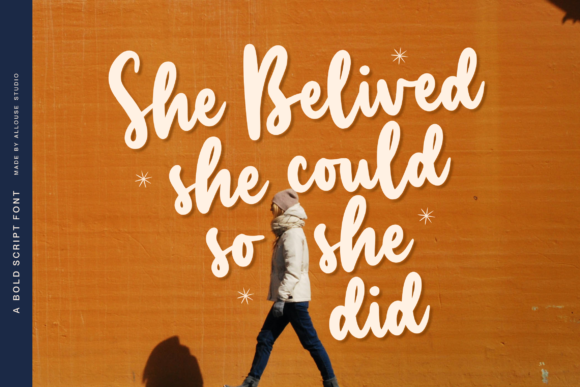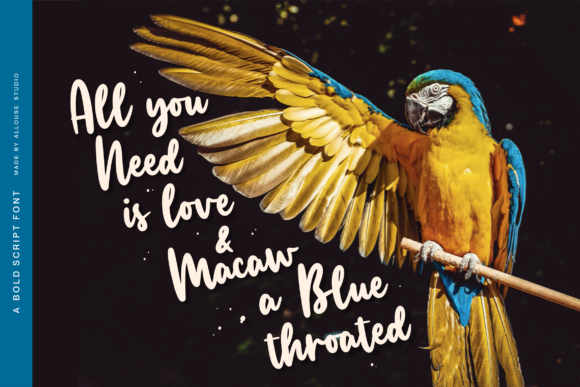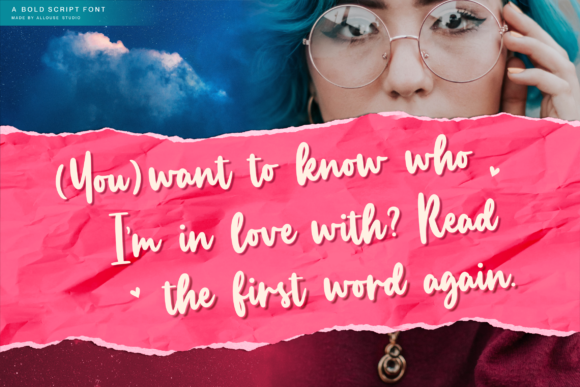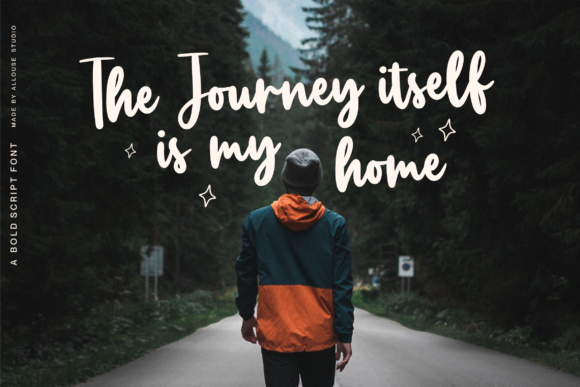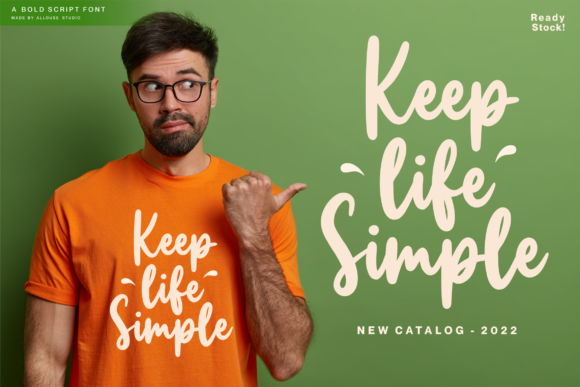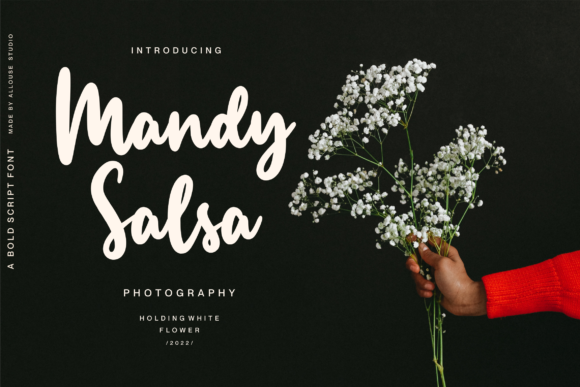
Introduction to Manlyscript Font
Have you ever been working on a creative project, pouring your heart and soul into it, and suddenly, the perfect font comes along and takes it to the next level? That’s exactly what happened to many designers when they stumbled upon the Manlyscript Font. Its unique blend of relaxed and stylish handwriting has been making waves in the design world, and for good reason.
Whether you’re working on a digital design, a presentation, or a handmade craft, the Manlyscript Font is an invaluable resource that can elevate your work and make it stand out. With its versatility and high-quality design, it’s no wonder why designers are falling in love with this font. And the best part? It’s available for free download, making it an accessible design resource for creatives of all levels.
From crafting greeting cards to creating presentations with a transparent background, the Manlyscript Font is the perfect addition to any design project. In this article, we’ll dive deeper into the world of Manlyscript Font and explore its many uses, so keep reading to discover why this font is becoming a favorite among designers.
Key Features of Manlyscript Font
- Unique blend of elegance and ruggedness, perfect for creative projects requiring a touch of sophistication and masculinity.
- Transparent background option, allowing for seamless integration with various design elements and backgrounds.
- Includes a range of sizes and resolutions, from 72 dpi to 300 dpi, catering to various design needs and requirements.
- Features a robust and bold design, making it an excellent choice for headings, titles, and other prominent text elements.
Honest Review: Manlyscript Font
As a designer, I’m always on the lookout for unique and high-quality design resources to elevate my creative projects. Recently, I had the chance to work with the Manlyscript Font, and I’m excited to share my honest review.
What works well: ✨ The Manlyscript Font is incredibly versatile, making it perfect for a variety of design projects. From posters to logos, this font seamlessly adapts to different styles and themes. I particularly appreciate its rugged, handwritten feel, which adds a touch of personality to any design.
- Transparent background support
- High-quality design suitable for various creative projects
However, there are some limitations to consider: ⚠️ The font may not be the best choice for designs that require precise, clean typography. Additionally, some users may find the font’s bold, handwritten style overwhelming.
Overall, I’m impressed with the Manlyscript Font’s flexibility and unique design aesthetic. While it may not be perfect for every project, it’s definitely a valuable addition to any designer’s toolkit.
Tips for Getting the Most Out of Manlyscript Font
For a transparent background, use Manlyscript Font with a PNG file. Experiment with different font sizes and colors to create a unique design.
Common Use Cases for Manlyscript Font
Use Manlyscript Font for creative projects, such as:
- Business cards and brochures.
- Social media graphics and posters.
- Wedding invitations and event materials.